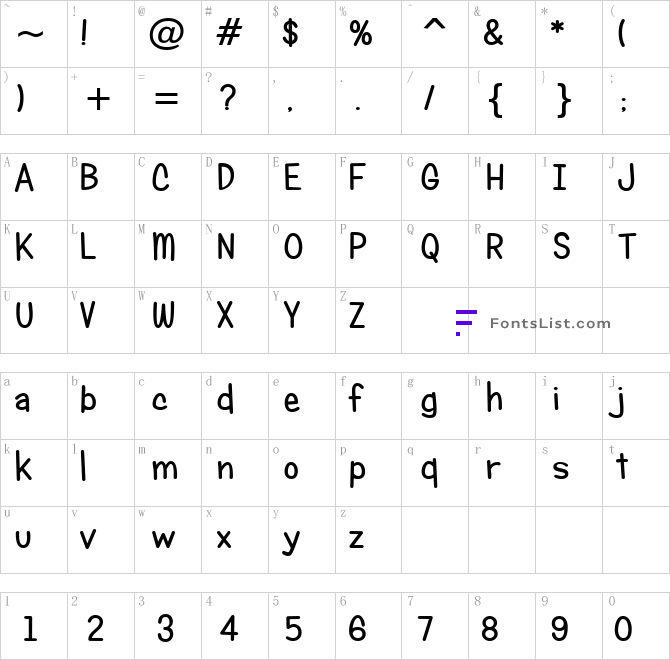
- Font Name:Candy Round BTN
Candy-Round-BTN-Bold.ttf is a very beautiful artistic font, Candy-Round-BTN-Bold.ttf is widely used in the design and printing of various books and pictures,Candy-Round-BTN-Bold.ttf has a strong visual impact,Candy-Round-BTN-Bold.ttf is a commonly used font in newspapers, magazines and books, and is used in posters, e-commerce Poster design, store design, logo design, font design and other fields.Candy-Round-BTN-Bold.